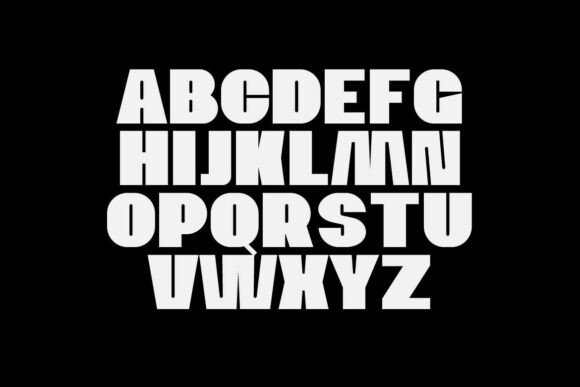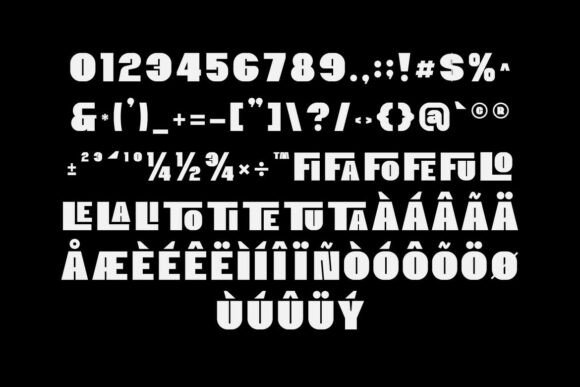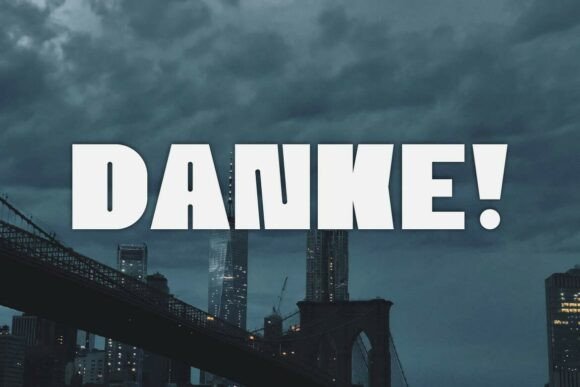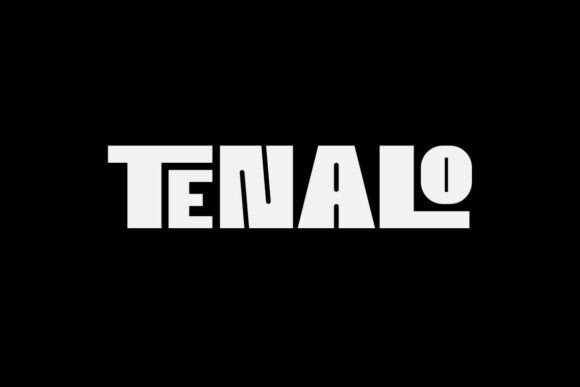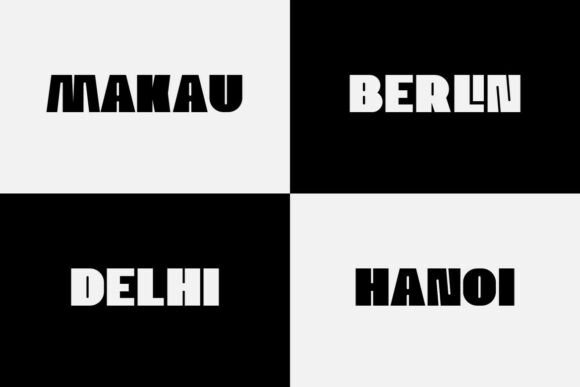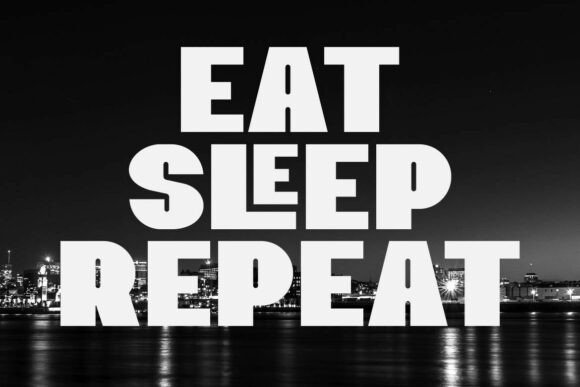
Introduction to Montrix Font
The moment of truth arrives when you’re about to present your latest creative project to the world. You’ve poured your heart and soul into it, but something’s missing – a font that truly makes an impact. That’s where Montrix Font comes in – a strong, bold sans display font designed to leave a lasting impression.
Whether you’re a seasoned designer or a creative enthusiast, Montrix Font is an invaluable resource for any high-quality design project. Its thick strokes, clean lines, and confident structure make it perfect for branding, posters, sports graphics, headlines, and product packaging. With Montrix Font, you can add a touch of sophistication and clarity to your designs, making them truly unforgettable.
Key Features of Montrix Font
- Unique, modern design suitable for various creative projects and designs
- High-quality font with a transparent background, ideal for graphic design and digital art
- Includes a wide range of characters, including uppercase and lowercase letters, numbers, and special characters
- Perfect for designers who need a clean and elegant font for their designs, with a size range of 8-100 points and a resolution of 300 DPI
- Montrix Font is a great addition to any design resource, offering a fresh and creative look for various projects
Honest Review: Montrix Font
As a designer, I’m always on the lookout for high-quality design resources that can elevate my creative project. Recently, I stumbled upon the Montrix Font, and I was excited to give it a try.
First impressions are everything, and Montrix Font definitely delivers. The font is sleek, modern, and perfect for any design project that requires a touch of sophistication. One of the standout features of this font is its transparent background, which makes it incredibly versatile and easy to work with.
Here are some of the things that work well with Montrix Font:
- ✨ High-quality design: The font is crisp and clear, making it perfect for any print or digital design project.
- ✨ Versatile: The transparent background makes it easy to use Montrix Font on any background.
While Montrix Font is an excellent resource, there are a few limitations to be aware of:
- ⚠️ Limited character set: The font only includes a limited character set, which may not be suitable for longer texts or complex designs.
- ⚠️ Not ideal for body text: Due to its sleek and modern design, Montrix Font may not be the best choice for body text, where readability is key.
Overall, I’m impressed with Montrix Font and would definitely recommend it for designers looking for a high-quality, modern font for their creative project.
Tips for Getting the Most Out of Montrix Font
To get the most out of Montrix Font, experiment with different font sizes, colors, and styles to find the perfect look for your project. Use the font in conjunction with other design elements to create a visually appealing and cohesive design.
Montrix Font is a versatile design resource that can be used in a variety of creative projects, including business presentations, marketing materials, and social media graphics. Its high quality and transparent background make it an ideal choice for designers who want to create professional-looking designs without the hassle of custom typography.